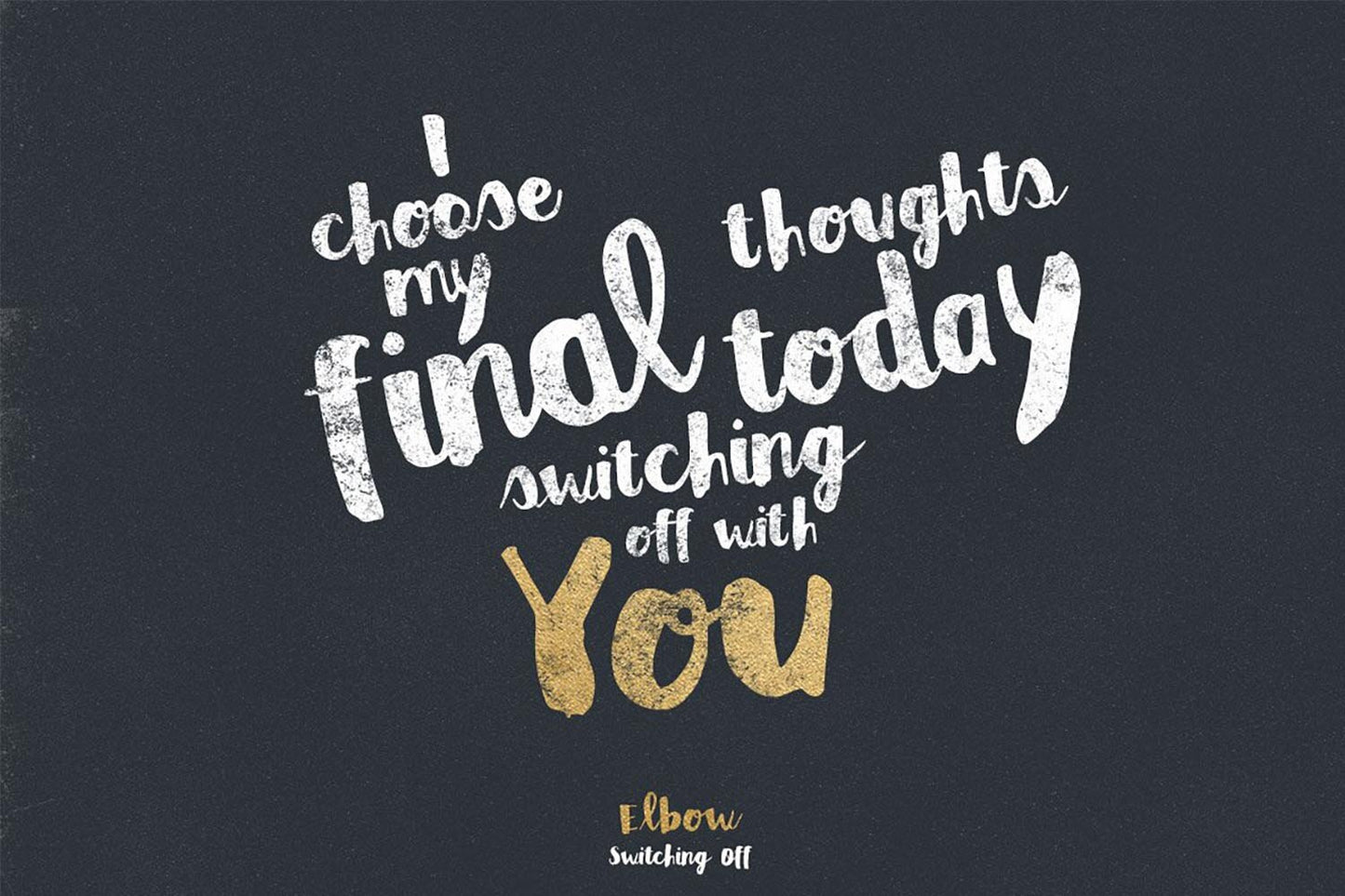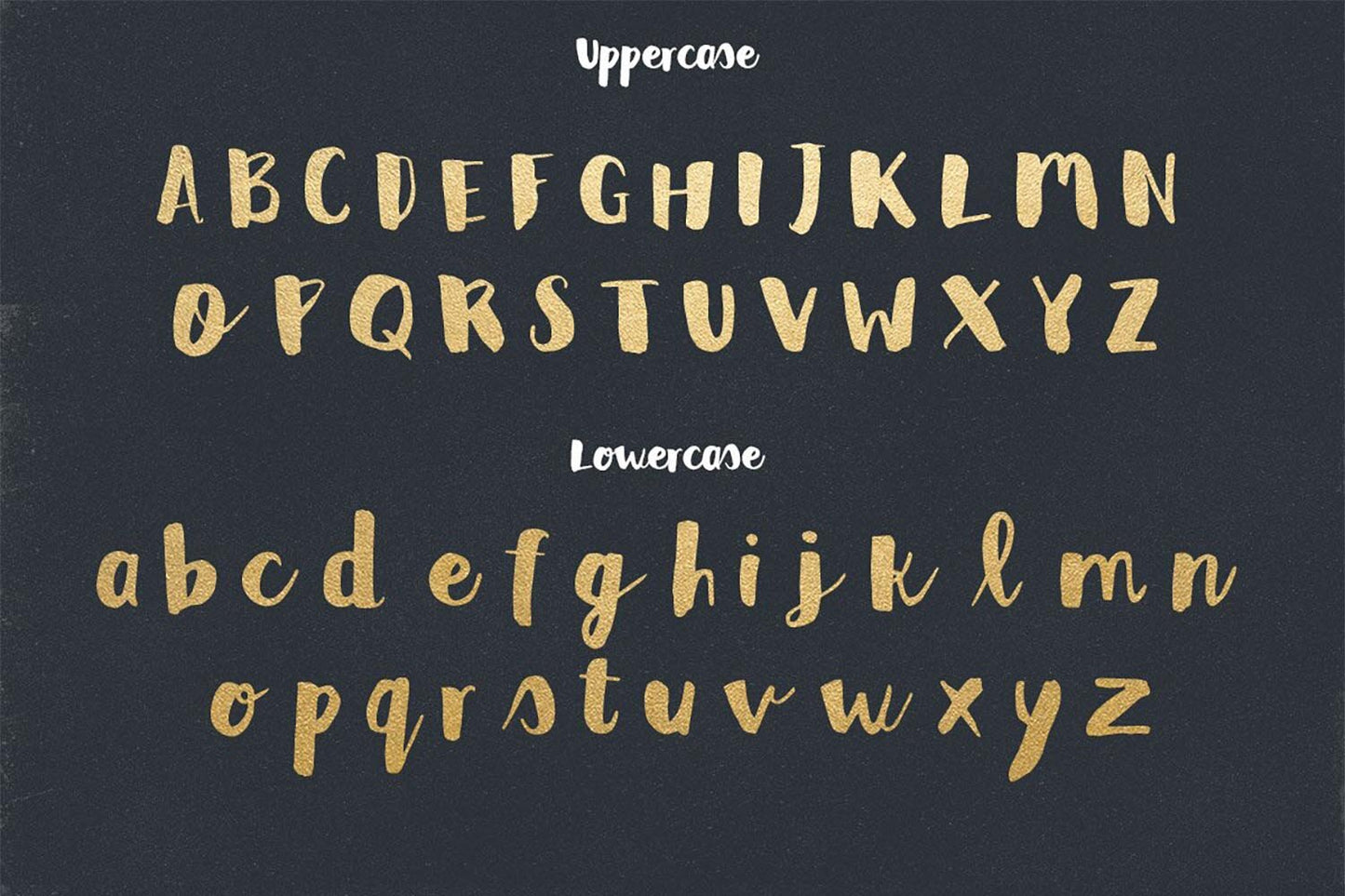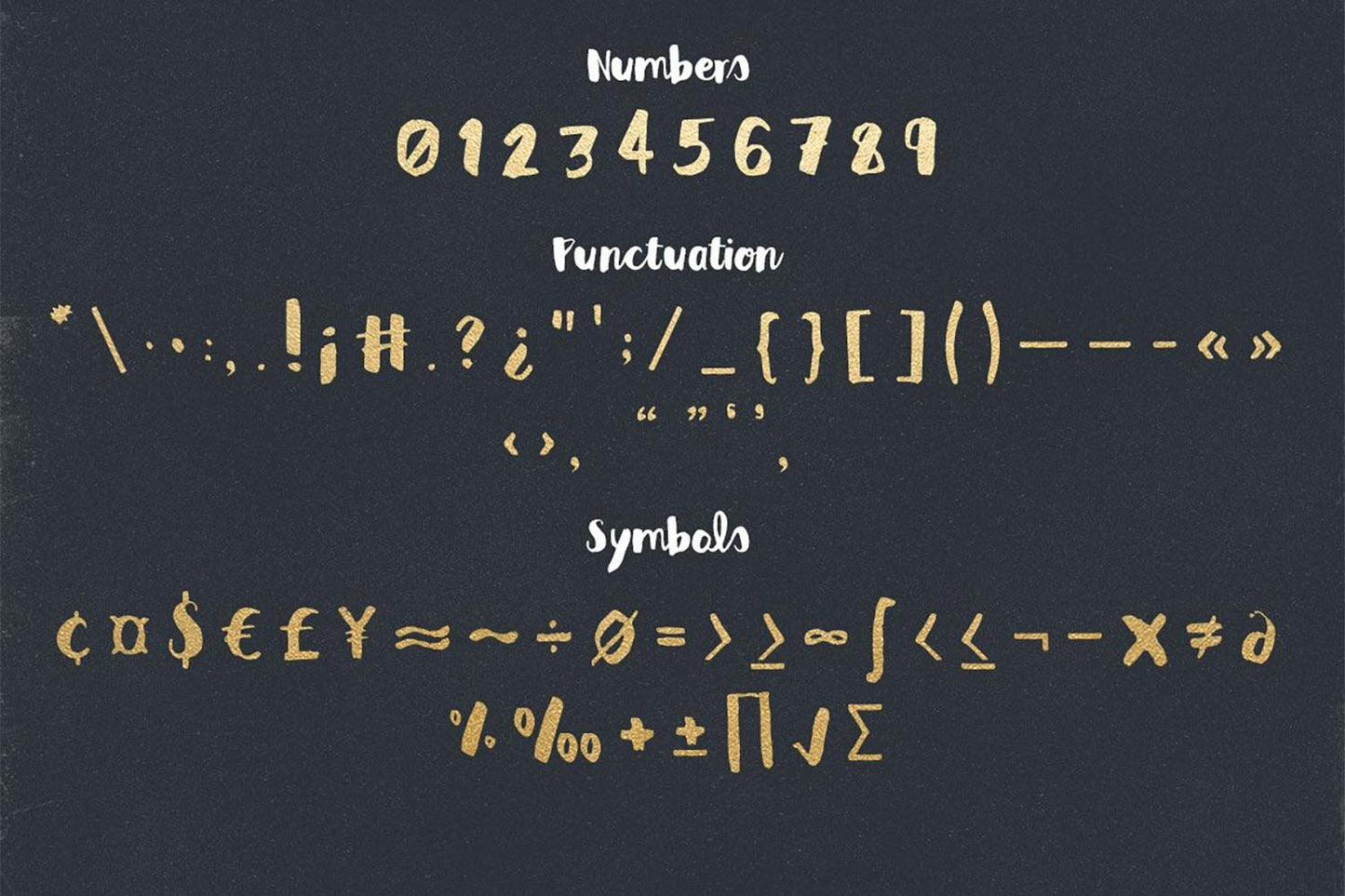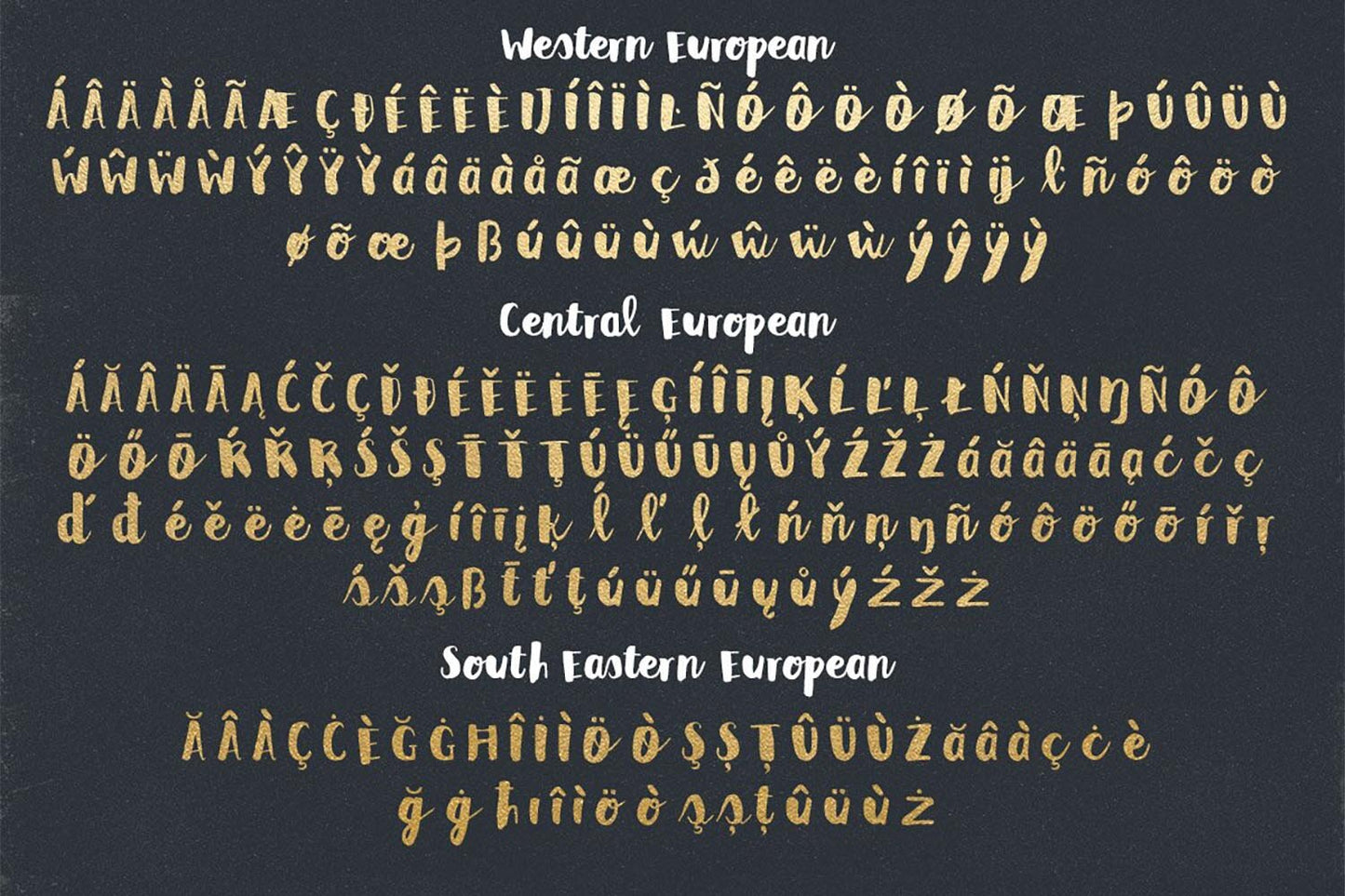
Moorgate
About Moorgate
Introducing Moorgate, a hand-drawn brush script font. Created with Indian ink, a brush, and a scanner. It has a quirky look and feel with a slight touch of grunge about it.
It's a unique and stylish hand-drawn brush script typeface that's sure to catch the eye. The brush script style gives it a distinct, free-flowing, and organic look, making it perfect for a wide range of creative projects.
Whether you're designing posters, invitations, branding materials, or anything that requires a personal touch, Moorgate font has got you covered.
Moorgate font name
I used to work near Moorgate tube station, right in the heart of London's financial district. It was a bustling area with skyscrapers, banks, and all sorts of businesses. I liked the name so I stuck with it.
If Moorgate font were a celebrity
Maybe it's just like Orlando Bloom, who's got a name tied to a place too. Moorgate font, like our cool actor friend Orlando, fits right into any scene. Whether you're going for fancy invites or laid-back posters, this font has that all-around charm that makes it perfect for any gig.